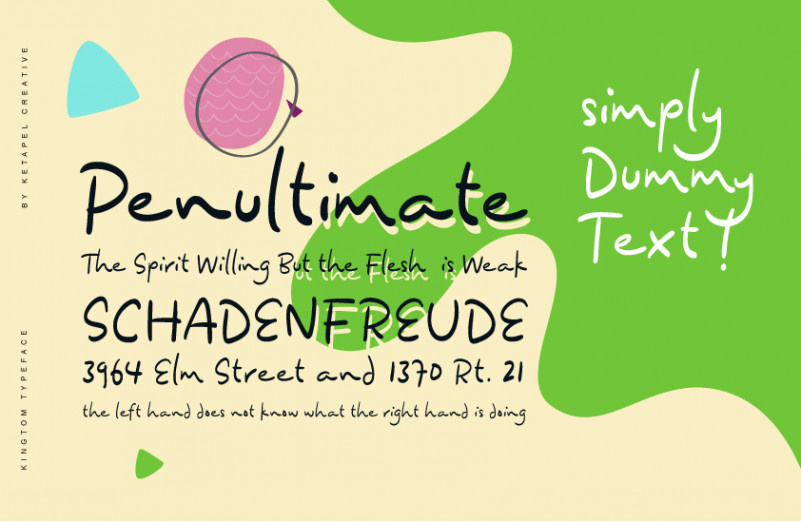
Kingtom Handwritten Font
kingtom is a cute and casual handwritten font with an incredibly friendly feel. This fantastic font is best suited for headlines of all sizes, as well as for blocks of text that have both maximum and minimum variations.